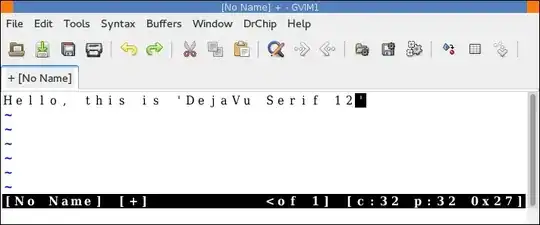
Is there any way to use a non-monospace font in either vim or gvim?
I tried changing the font for gVim with:
:set guifont=Dejavu\ Serif\ 12
But this gives me some rather ugly results:
I get the same results if I use the menu (Edit -> Select font)
:help guifont says:
Note that the fonts must be mono-spaced (all characters have the same
width).  An exception is GTK 2: all fonts are accepted, but
mono-spaced fonts look best.
So I think the above results count as "not looking best"? Can this be improved upon, somehow?
I also tried setting a non-monospace font in my terminal (xterm), but that seems to have roughly the same effect:
I don't mind using a different terminal emulator for this btw.
• ConEmu terminal on Windows supports proportional fonts (wavy vertical split lines). VSCode (with neovim extension) has full proportional font support. – tejasvi88 Feb 20 '22 at 13:25
I found mlterm, which supports this. Aside from Emacs' built-in terminal (M-x term) this is the only terminal I've found that supports this (I've tried about 15-20 different ones).
I've found that mlterm works better than Emacs due to the sceen ratio settings, and you also avoid having to run Vim inside an Emacs session (I'm not even sure that is legally allowed).
Screenshot (it looks ugly unless you open it full size due to scaling in the browser):
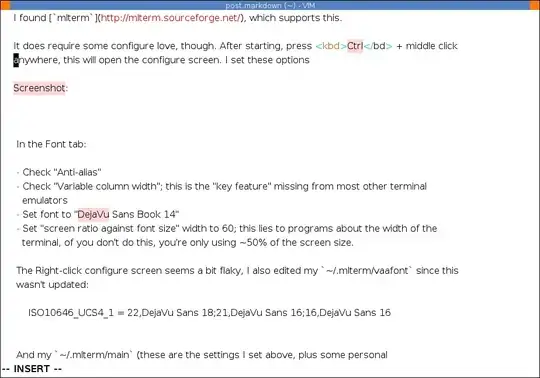
It does require some configure love, though. After starting, press Ctrl + middle click anywhere, this will open the configure screen. I set these options
In the Font tab:
• Check "Anti-alias"
• Check "Variable column width"; this is the "key feature" missing from most other terminal emulators
• Set font to "DejaVu Sans Book 16" (or whatever else you prefer)
• Set "screen ratio against font size" width to 60; this lies to programs about the width of the terminal, of you don't do this, you're only using ~50% of the screen size. The best value for this depends on the font used, so experiment a bit...
The Right-click configure screen seems a bit flaky, I also edited my ~/.mlterm/vaafont since this wasn't updated:
There are some artefacts, which are to be expected, but writing emails or posts such as this, it seems to work quite well!
There's also goyo.vim which goes roughly the same, but that didn't work very well for me (too much mucking about with margins). YMMV though.
• Looks funny (and unusable) when you use vertical split: screenshot. But that's to be expected from a terminal-based solution. – Ruslan May 22 '19 at 08:27
It's definitely not supported in GUI Vim, and I'd be surprised if there were more than handful of terminal emulators that support proportional fonts in the way that you're hoping for: it would break too many of the standard things for which terminals are used. As so many parts of Unix and other command-line environments presume monospaced fonts, this type of display couldn't be used as a general purpose terminal, so the terminal's developer would have to have carried out additional work for little benefit.
However, there does exist at least one Terminal emulator that's implemented using web technologies (Ajaxterm), and as this uses HTML/CSS for rendering, it's possible to make it to use a proportional font using CSS. CJS Hayward has done just this, but it requires using a very old browser.
Proportional fonts are supported in Neovim GUIs such as FVim.
The discontinued Oni project also supported this with its "webgl" renderer (see https://github.com/onivim/oni/issues/2359):